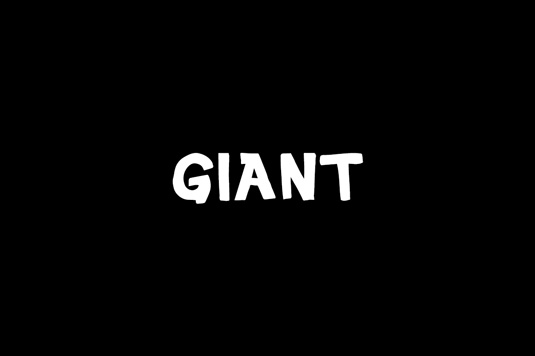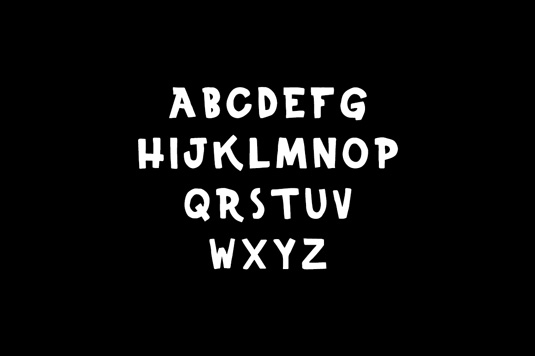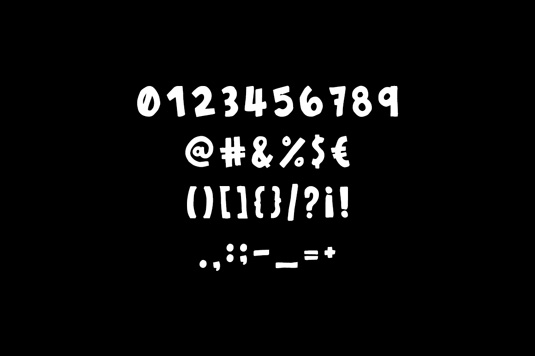
Font of the day: Giant
Every day we showcase the best fonts on the web. Today it's Giant by Noe Araujo.
Giant by Noe Araujo
Today's typeface of choice is Giant by designer Noe Araujo. A bold display font, Giant is great for posters, headlines, logos and much more.